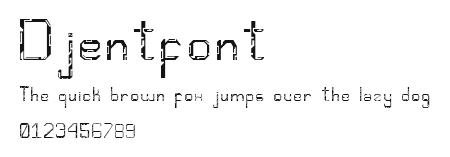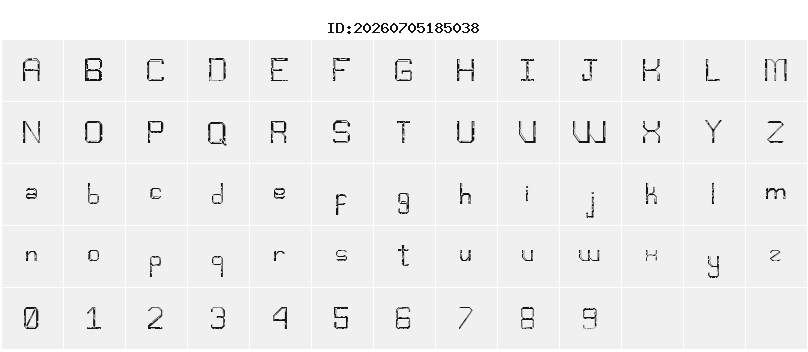
Djentfont Preview
• Font Name: Djentfont
• Full Font Name: Djentfont
About Djentfont.ttf
Djentfont.ttf is a modern, elegant sans-serif font designed for ultimate readability and visual harmony. Perfect for branding, headlines, web design, and print materials.